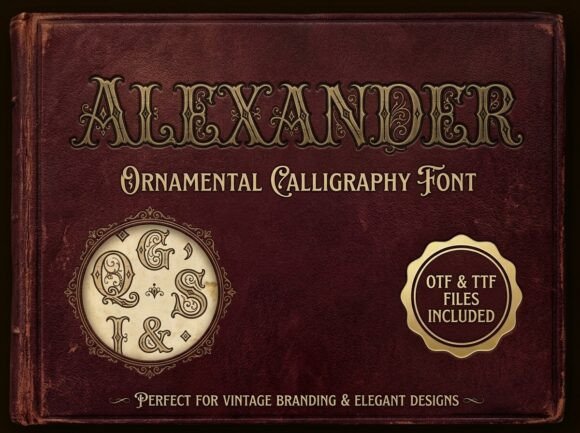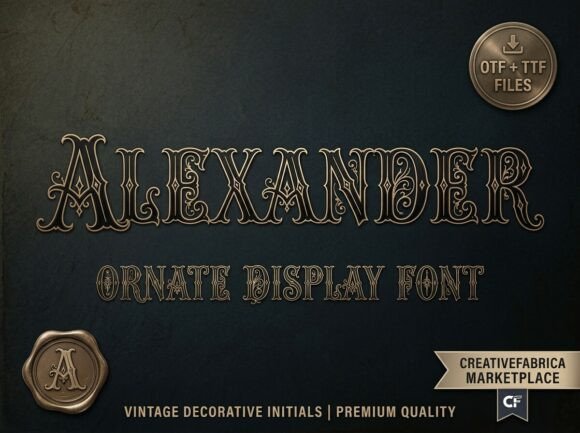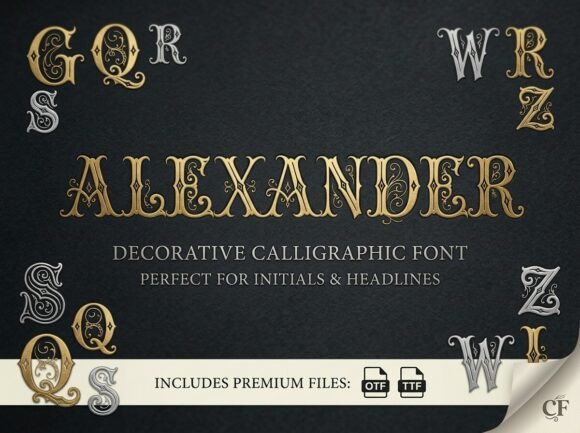
The Regal Elegance of Alexander Font: A Designer’s Dream
I still remember the day I was working on a luxury branding project for a high-end jewelry client. I had spent hours agonizing over the perfect logo design, but something was missing. The font I had chosen just didn’t have the level of sophistication and elegance that the brand demanded. That’s when I stumbled upon Alexander, a decorative calligraphic font that would change the game for me and my design work.
First Impressions: What I Love About Alexander
Alexander is more than just a font – it’s an experience. Here are a few things that I absolutely love about it:
- ✨ Majestic, high-contrast letterforms inspired by classical Roman structures, giving it a regal and sophisticated feel.
- ✅ Intricate internal scrollwork and ornate Victorian flourishes that add a level of detail and craftsmanship to any design.
- 💫 Shimmering gold and silver metallic textures that give the font a luxurious and high-end feel.
- 🎨 Deeply enriched with ornate details, making it perfect for luxury heraldic branding, royal-themed event stationery, high-end spirit labels, and historical book covers.
The Not-So-Perfect: A Few Quirks
While Alexander is an incredible font, it’s not without its limitations. Here are a few things to keep in mind:
- 🤔 Legibility at small sizes: Due to its intricate details and high-contrast letterforms, Alexander can be challenging to read at smaller font sizes.
- ⚠️ Limited use cases: While Alexander is perfect for certain projects, it may not be the best choice for body text or more casual designs.
The Story Behind Alexander: Designer Inspiration
Alexander was inspired by the grandeur of classical Roman structures and the intricate details of Victorian-era design. The font’s creator aimed to craft a typeface that exudes sovereign elegance and traditional craftsmanship. By combining majestic letterforms with ornate flourishes and metallic textures, Alexander was born – a font fit for luxury brands and prestigious projects.
| What makes Alexander suitable for luxury branding? | Alexander’s majestic letterforms, intricate details, and metallic textures evoke a sense of luxury and sophistication, making it perfect for high-end brands. |
| Can I use Alexander for body text? | While Alexander is stunning for headlines and titles, its intricate details and high-contrast letterforms may make it challenging to read for body text. |
| Is Alexander available in different weights or styles? | Alexander comes in various styles, including regular, italic, and metallic textures, allowing for flexibility in your designs. |